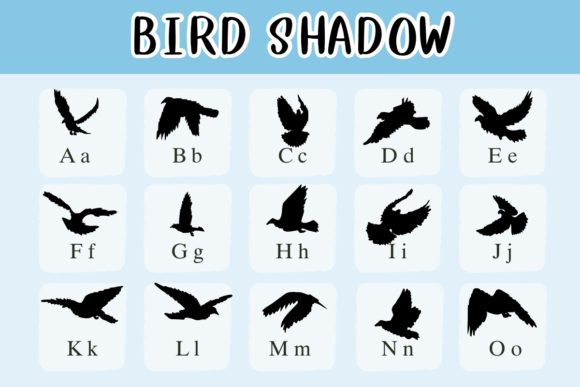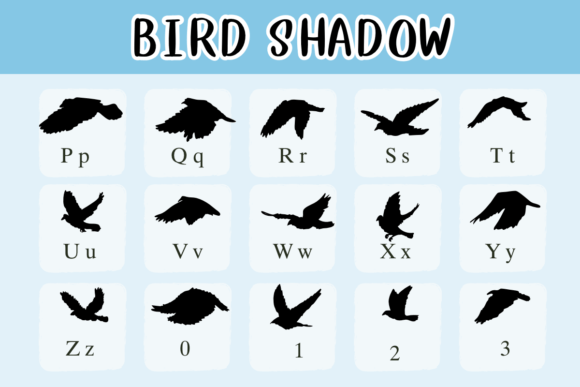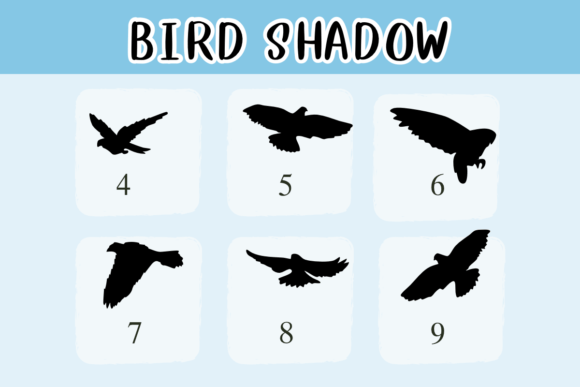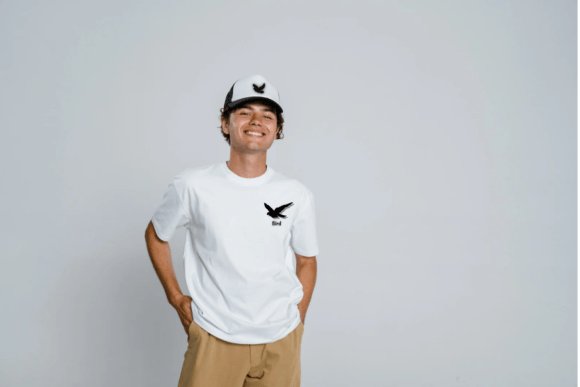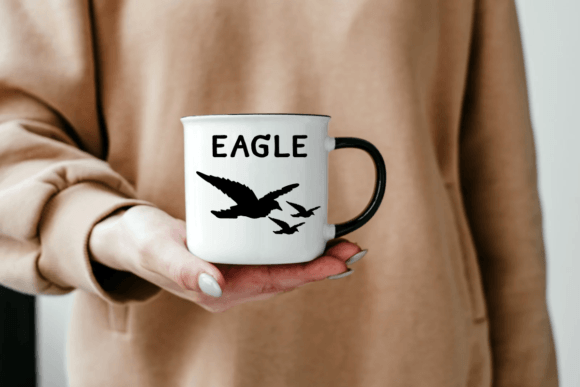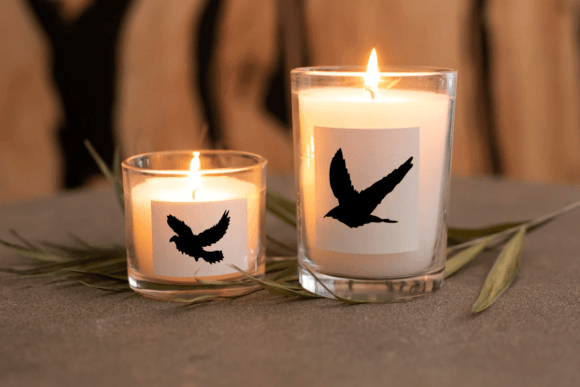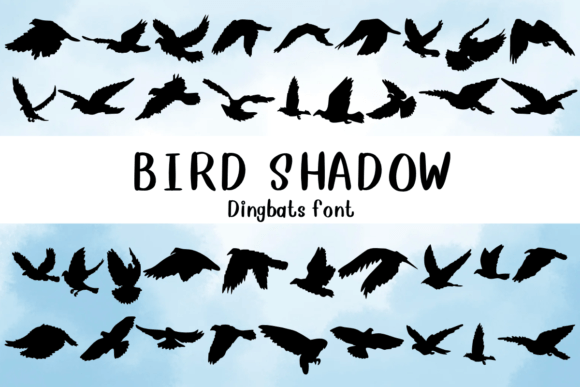
The Bird Shadow Font: A Whimsical Touch for Your Designs
Have you ever been working on a project, pouring your heart and soul into it, only to realize that it’s missing that special something? I recall a recent experience where I was designing a wedding invitation and wanted to add a touch of whimsy. I scoured the internet for the perfect font, and that’s when I stumbled upon the Bird Shadow Font. It’s a charming dingbat font featuring silhouettes of flying birds, and I just knew it was the perfect fit.
I’ve had the pleasure of working with the Bird Shadow Font, and here’s my honest review:
- ✨ Unique and Whimsical: Each character showcases a unique bird shape, adding a playful and nature-inspired flair to your typography.
- 💕 Versatile: Perfect for adding decorative elements to invitations, posters, and any other design project.
- 🤔 Limited Character Set: As a dingbat font, it’s primarily designed for decorative purposes, so don’t expect a full range of alphanumeric characters.
The Story Behind Bird Shadow Font
The Bird Shadow Font was designed by a creative team who wanted to capture the beauty and freedom of birds in flight. Inspired by the natural world, they crafted a font that’s both decorative and evocative. Whether you’re a designer, crafter, or creative hobbyist, this font is sure to add a delightful touch to your projects.
Q: What type of projects is Bird Shadow Font best suited for?
A: Bird Shadow Font is perfect for adding decorative elements to invitations, posters, and any other design project where you want to add a touch of whimsy.
Q: Does Bird Shadow Font support OpenType features?
A: Yes, Bird Shadow Font supports OpenType features, including glyphs and stylistic alternates. This allows you to access a wider range of characters and design options.